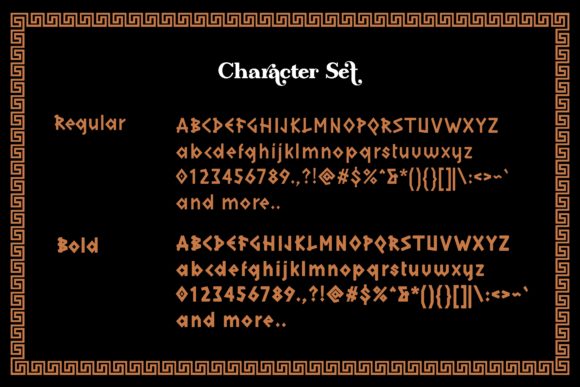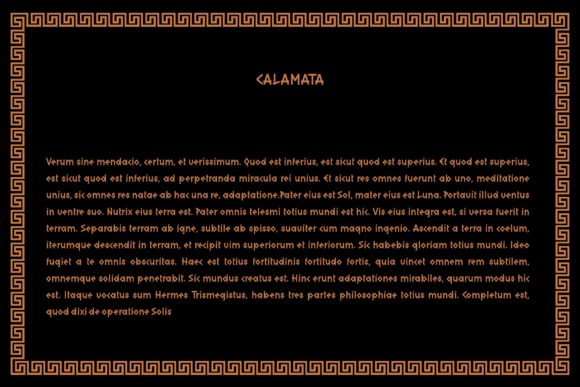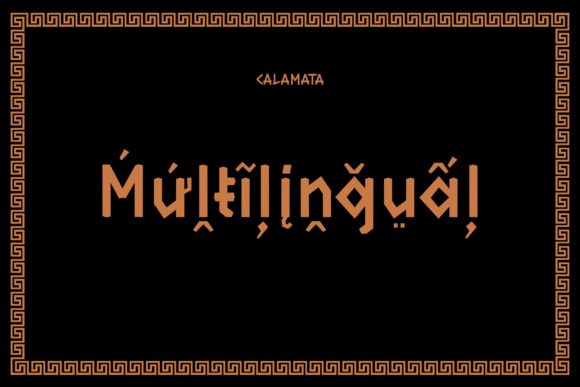
Calamata Font: The Ultimate Display Font for Designers and Crafters
Are you tired of using the same old fonts for your designs and crafts? Look no further than the Calamata font! This fun, thick lettered, and playful display font is perfect for adding a touch of personality to your projects. Whether you’re a designer, crafter, or simply someone who loves to get creative, Calamata is sure to become your new go-to font.
What is Calamata Font?
Calamata is a display font that is characterized by its bold, thick letters and playful vibe. It’s the perfect font for making a statement, whether you’re designing a logo, creating a greeting card, or making a presentation. The font is highly versatile and can be used for a wide range of projects, from digital design to crafts.
Features of Calamata Font
- Bold and Thick Letters: Calamata font features bold and thick letters that are sure to grab attention.
- Playful Vibe: The font has a playful and fun vibe that’s perfect for adding a touch of personality to your designs.
- Highly Versatile: Calamata font can be used for a wide range of projects, from digital design to crafts.
- Easy to Read: Despite its bold and thick letters, Calamata font is easy to read, making it perfect for use in presentations and other designs where readability is important.
Uses of Calamata Font
So, what can you use Calamata font for? The possibilities are endless! Here are a few ideas to get you started:
- Crafts: Calamata font is perfect for use in crafts, such as scrapbooking, card making, and other paper crafts.
- Digital Design: The font is also great for use in digital design, such as creating social media graphics, blog posts, and other online content.
- Presentations: Calamata font is a great choice for presentations, as it’s easy to read and adds a touch of personality to your slides.
- Greeting Cards: The font is perfect for creating greeting cards, as it’s playful and fun, and can be used to add a personal touch to your cards.
Why Choose Calamata Font?
So, why should you choose Calamata font for your next project? Here are a few reasons:
- Unique and Playful: Calamata font is a unique and playful font that’s sure to add a touch of personality to your designs.
- Highly Versatile: The font is highly versatile and can be used for a wide range of projects.
Tips for Using Calamata Font
Here are a few tips for using Calamata font:
- Use it Sparingly: While Calamata font is playful and fun, it can be overwhelming if used too much. Use it sparingly to add a touch of personality to your designs.
- Pair it with Other Fonts: Calamata font pairs well with other fonts, such as serif and sans serif fonts. Experiment with different pairings to find the one that works best for your design.
- Use it in Large Sizes: Calamata font is perfect for use in large sizes, such as headings and titles.
In conclusion, Calamata font is a fun, thick lettered, and playful display font that’s perfect for designers and crafters. Its bold and thick letters, playful vibe, and high versatility make it a great choice for a wide range of projects. Whether you’re creating crafts, digital designs, presentations, or greeting cards, Calamata font is sure to become your new go-to font. So why not give it a try and see what amazing designs you can create?